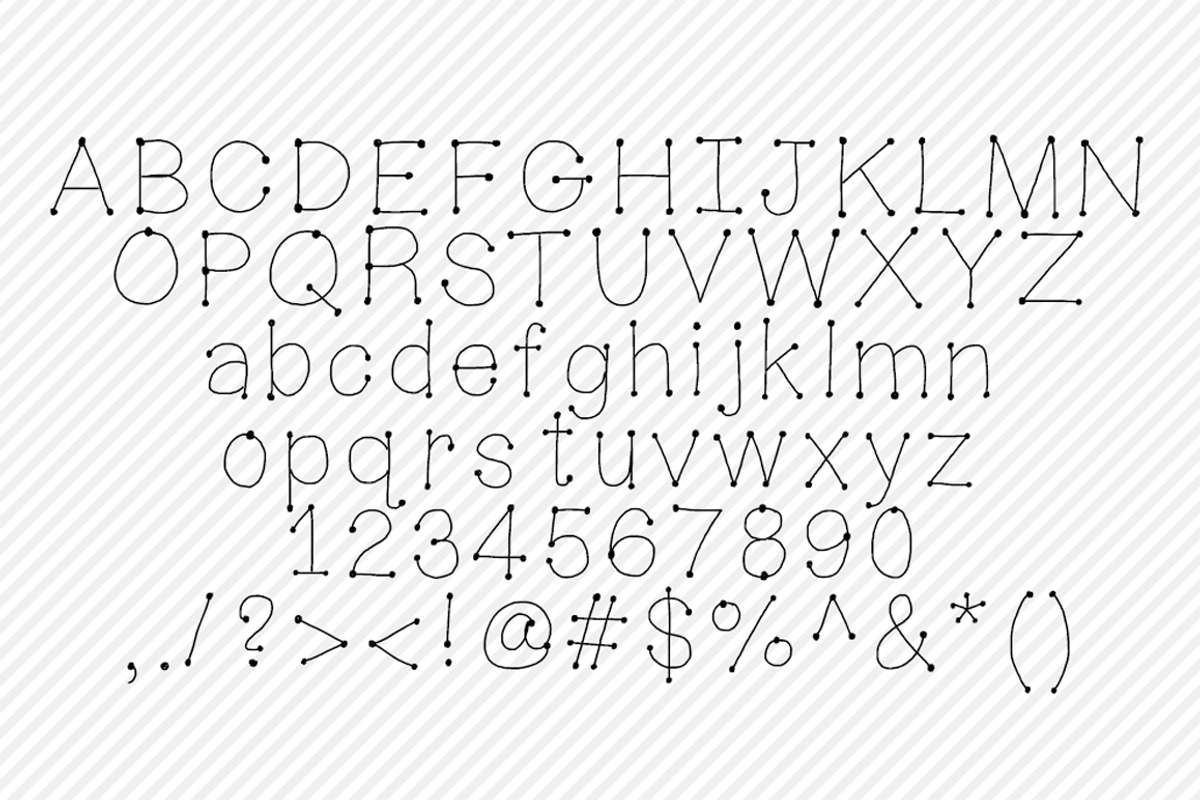
Dotted Hand Drawn Font
Dotted Hand Drawn Font by Polka Dot Pixels is a font selected for branding, posters, packaging, typography.
- upper and lowercase letters, numbers and punctuation are included.
Why Dotted Hand Drawn Font is worth a look
Dotted Hand Drawn Font by Polka Dot Pixels fits naturally into Branding, posters, packaging, typography.